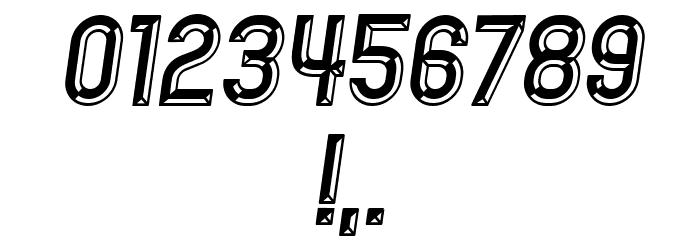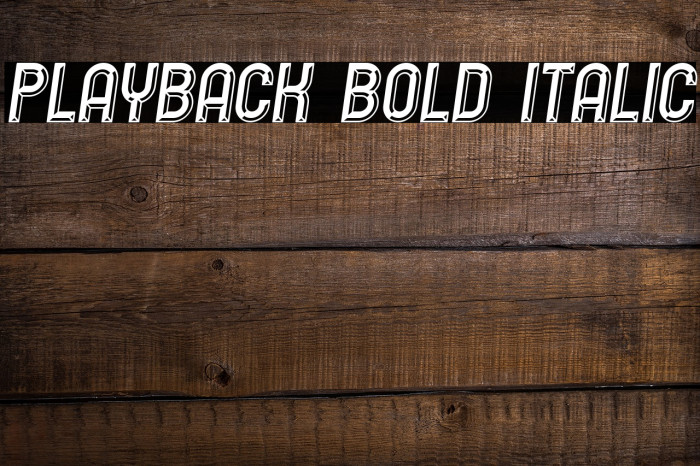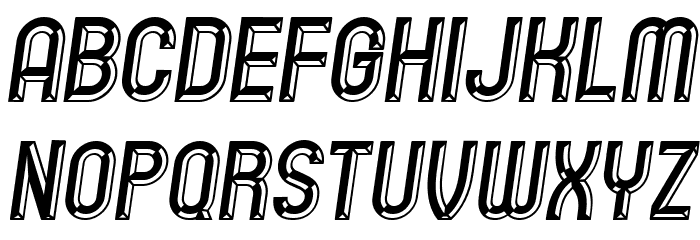
Playback Bold Italic Font
Playback Bold Italic Description
This font features a bold and italicized style with a distinct three-dimensional effect. The characters are outlined with a shadow that gives them a layered appearance, creating a sense of depth and movement. The uppercase and lowercase letters maintain a consistent style, with smooth curves and sharp angles that enhance the dynamic look. The numbers and special characters follow the same design principles, ensuring uniformity across all glyphs. This font is visually striking and commands attention, making it ideal for impactful designs.